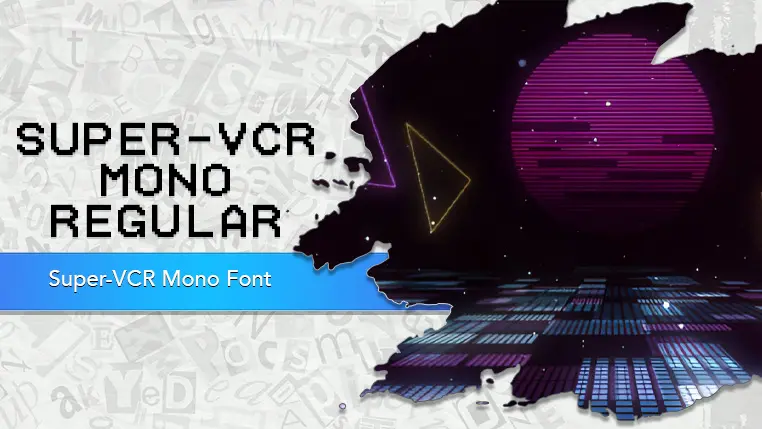
The Super-VCR Mono font family may be ideal for you if you enjoy working on an artistic design project. The lively, expressive look of this typeface, which was created by ASmolBoy, makes it ideal for Super-VCR Mono Font is perfect for evoking a strong sense of nostalgia for the 80s and 90s, especially anything related to retro technology, lo-fi video, or early digital interfaces. Posters and Flyers for events, parties, or art installations aiming for a vintage, analog, or 80s/90s aesthetic. Album Art especially for music genres like synthwave, vaporwave, chiptune, or lo-fi hip-hop. T-Shirt and Merchandise Design for apparel that plays on retro tech nostalgia. Video Titles/Overlays on Perfect for replicating the on-screen text of old VHS tapes, home videos, or "found footage" style content. and other light-hearted visual projects.
Regular are the one primary font styles of the Super-VCR Mono font family. You may build dynamic, visually appealing text layouts with the distinct flair that each style offers. With crisp, readable lines and a relaxed tone.